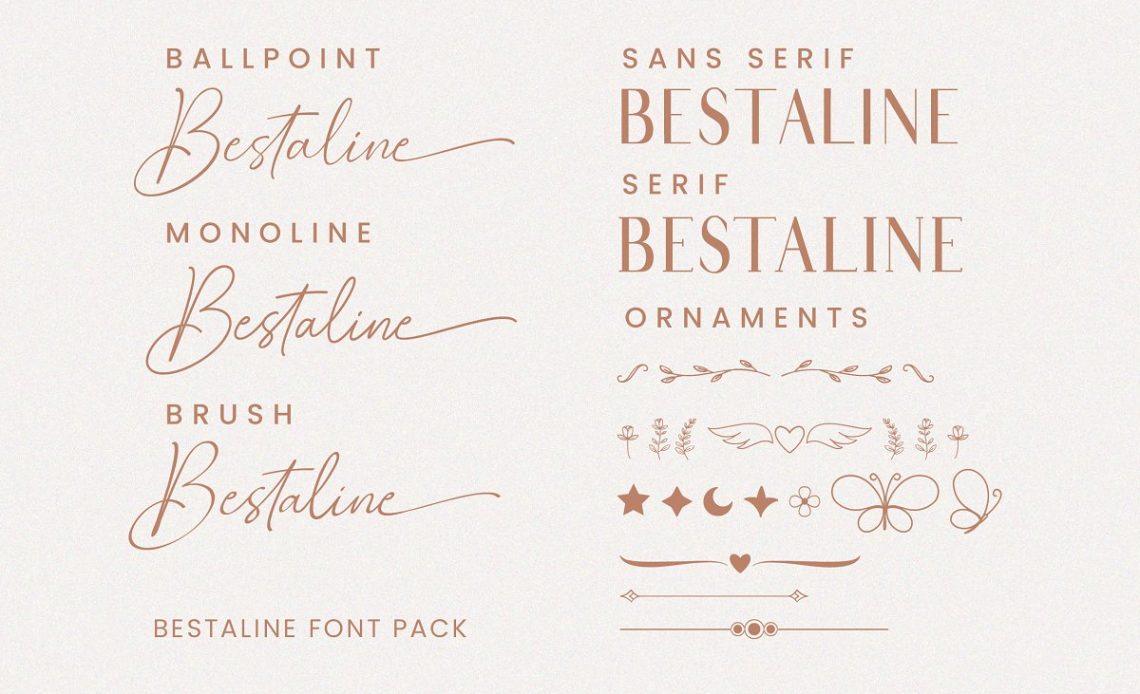
Introducing Bestaline Font Pack, the perfect choice for anyone looking for a font to use in their thank you card. Created by Typebae Foundry, this script font family has 5 styles of fonts and ornaments that can be combined to create a unique look for your project. But Bestaline isn't just versatile - it's also easy to use! With its stylistic alternate, ligature, and PUA encoding features, you can customize your design without having to use special software.
One of the best things about Bestaline is that it works in Canva. You can easily use the beginning and ending swashes without the need for software that supports OpenType. And with files available in multiple formats (OTF, TTF, and WOFF), you can use Bestaline on any device or platform.